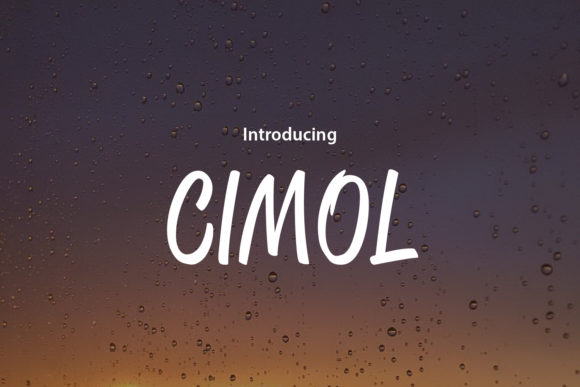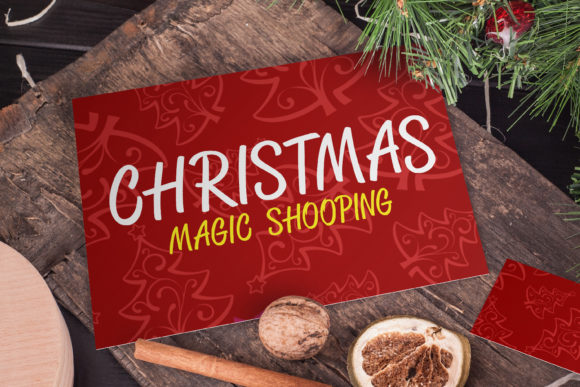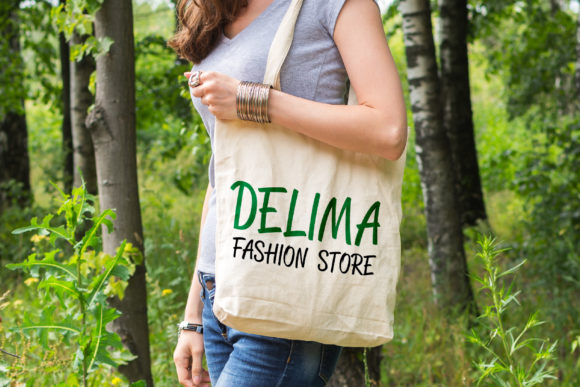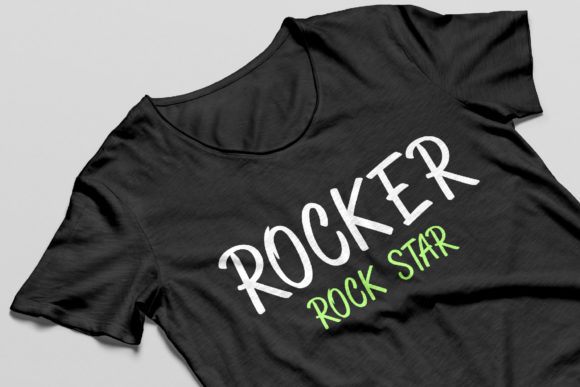
HomeScript FontsCimol Font Script Fonts Cimol Font FacebookXPinterestWhatsApp Cimol Font Poster 2 Cimol Font Poster 3 Cimol Font Poster 4 About Cimol Font Cimol is an equally playful and simple script font with a modern style. DOWNLOAD ON CREATIVE FABRICAThis font is sold and delivered by Creative Fabrica. Font Canyon may earn a commission if you buy through this link. People also explored Aeruans Font Viona Font Grattenburg Font Badhie Dope Font Kasttle Font Baby Shower Font Drunk Jola Font Glaster Font Stella Font 354 0 TagsCimol Font Previous articleIkocya FontNext articleCenthiny Font LEAVE A REPLY Cancel reply Comment: Please enter your comment! Name:* Please enter your name here Email:* You have entered an incorrect email address! Please enter your email address here Website: Save my name, email, and website in this browser for the next time I comment. Personal Use Free Legacy Personal Use Free Read more about this font Meloche Book Personal Use Free Read more about this font Shrag Script Personal Use Free Read more about this font Pelmeshka Personal Use Free Read more about this font BLOG Using Fonts in Digital Marketing: Tips to Strengthen Your Brand Identity In the realm of digital marketing, every visual element plays a crucial role in shaping a brand's identity, and fonts are no exception. The... 5 Fonts That Will Dominate Design Trends in 2026 Where to Buy American Fonts Online in 2024 Top 10 Handwritten Fonts That Elevate Your Designs